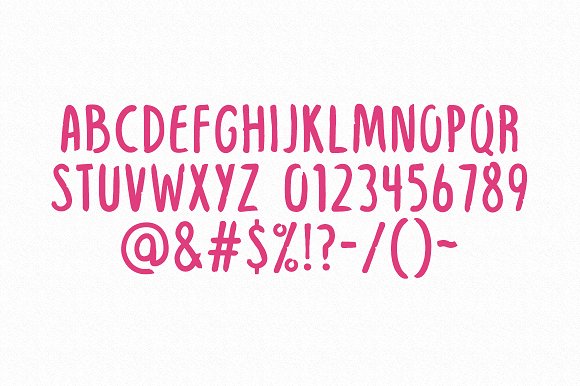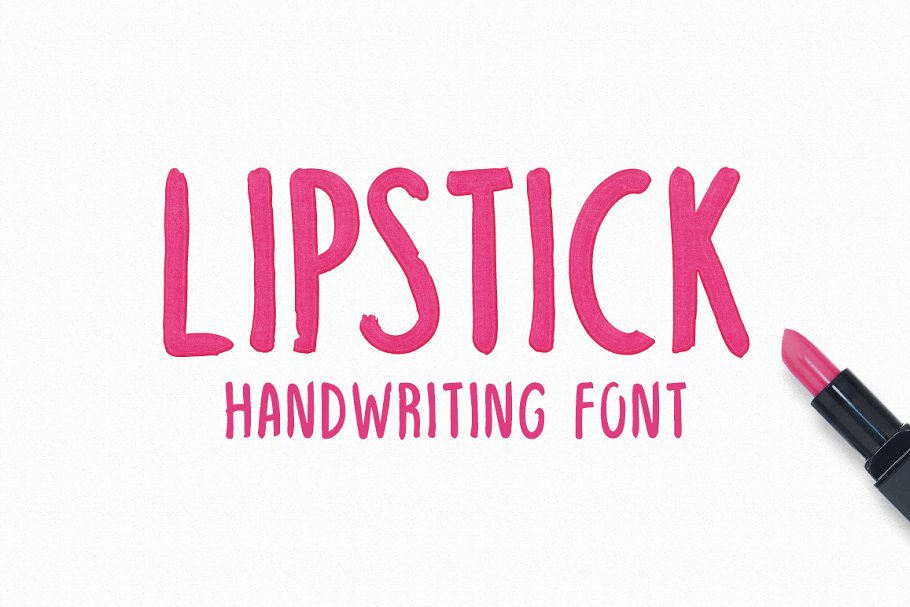
Lipstick Font
Lipstick Font falls under the category of th handwritten fonts. This font has a second name known as the Cursive font, and it is available for free download. A well-known American content writer took the all right for this fashionable typeface. And he creates it for them makes the content cloth look stylish.
He has taken the idea from coco font which turns into released due to the truth. In this approach, it in truth installation at the designs of the t-shirts printing. Lipstick Font Free Now that you may furthermore be called it the new version of the varsity font. At the identical time as you remember the fact that now it has contained all of the ancient elements with a selected facility.